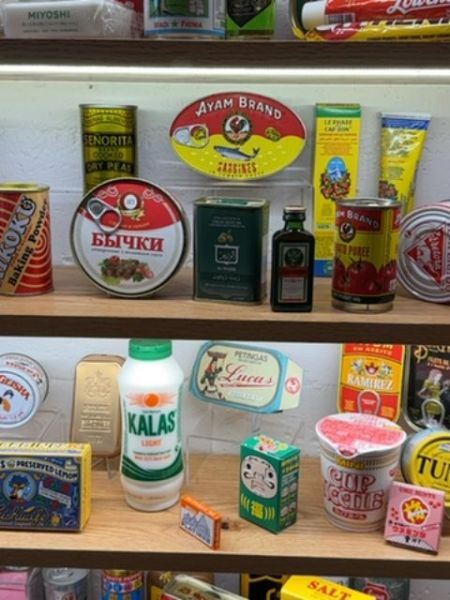
Cup Noodles
Instant noodles packaged in a disposable cup, ready to eat by simply adding hot water.
1971
The typography is bold and eye-catching, designed to stand out on a crowded shelf. The font style for the brand name is a sans-serif typeface, conveying a sense of modernity and approachability. The arrangement and size variations emphasize key elements like the brand and flavor, ensuring clarity and quick recognition.
The packaging is a cylindrical cup with a colorful, vibrant design. It features bold, prominent logos and pictures of noodles suggesting flavor and appeal. The use of bright colors is intended to catch the eye and convey excitement and flavor.
- Cup Noodles were first introduced in 1971.
- The product is known for its convenience and quick preparation time.
- It has become a cultural icon, often associated with a fast and easy meal solution.